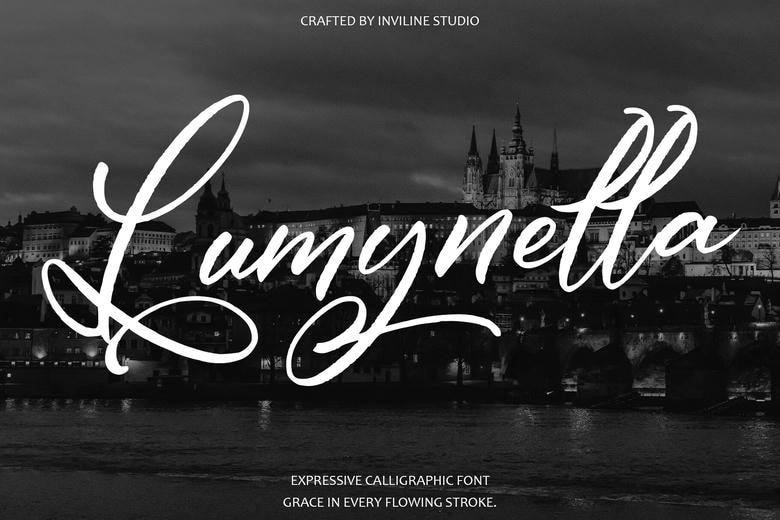
Lumynella Font
Lumynella is a playfully voluble calligraphic typeface, its artfully designed font is skillfully made to bring classic sophistication to the modern design worlds. The soft lines and smooth curves of Lumynella are the perfect solution to a variety of use cases, including wedding invitations and brand identities, glamorous editorials and film projects. Every hand cut letter of the Lumynella repertoire is romantic, full of nostalgia, and with a subtle elegance that is impossible to resist.
Lumynella is beautifully accommodating with an expansive character set with uppercase and lower case, symbols and multilingual support coupled with alternates that bring a lavish design experience to the product. Come, taste Lumynella, where modernity collides with the beauty of design most handsomely.
Lumynella Script Calligraphy Font